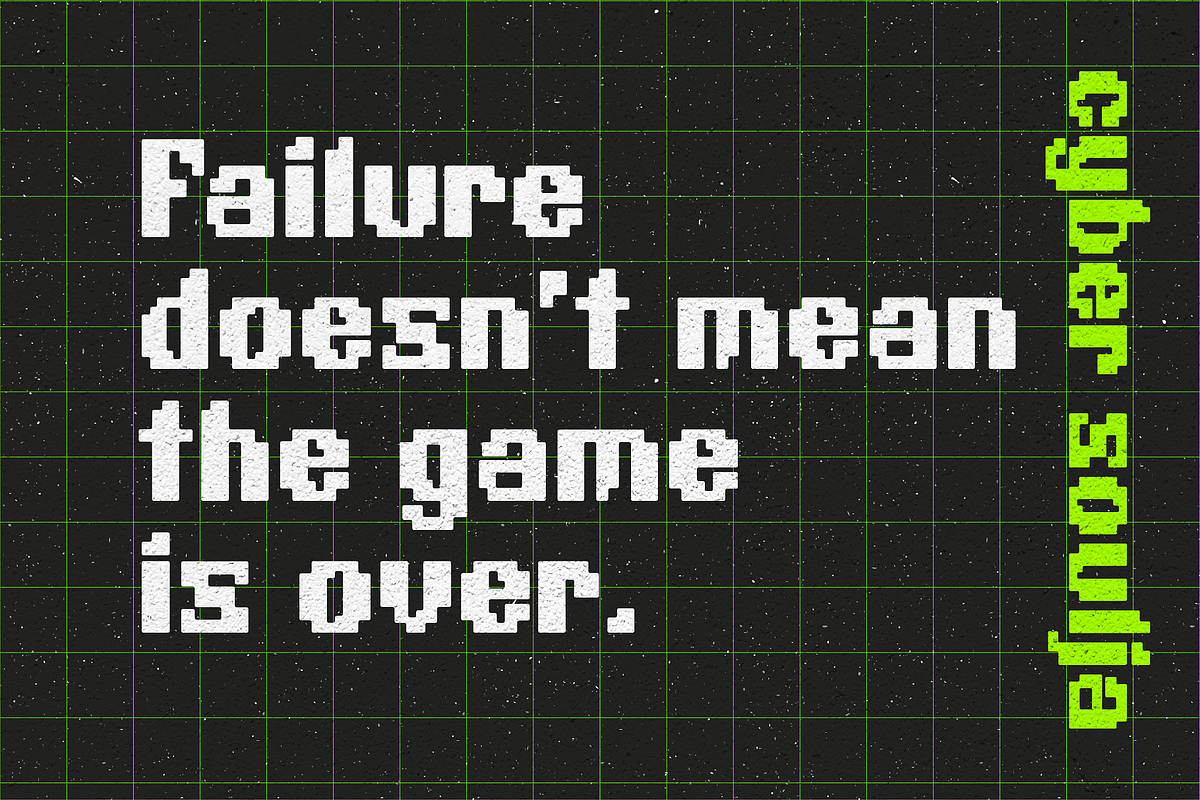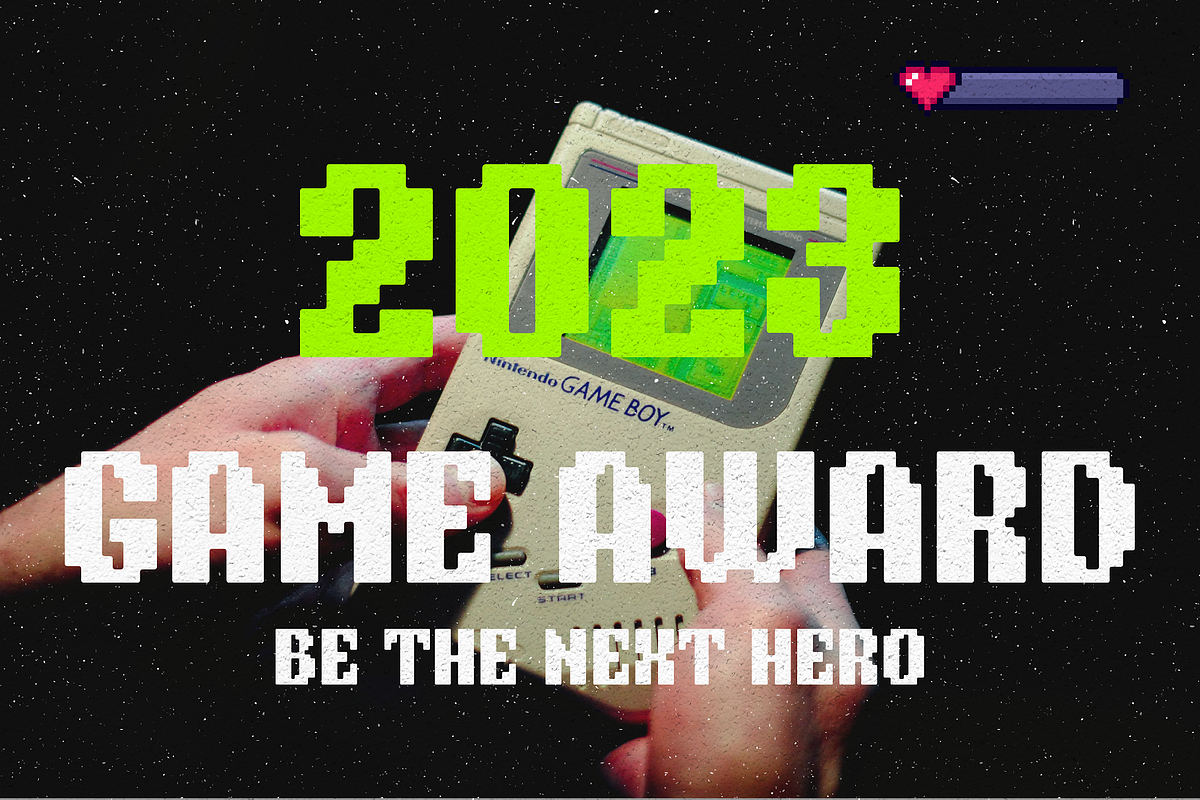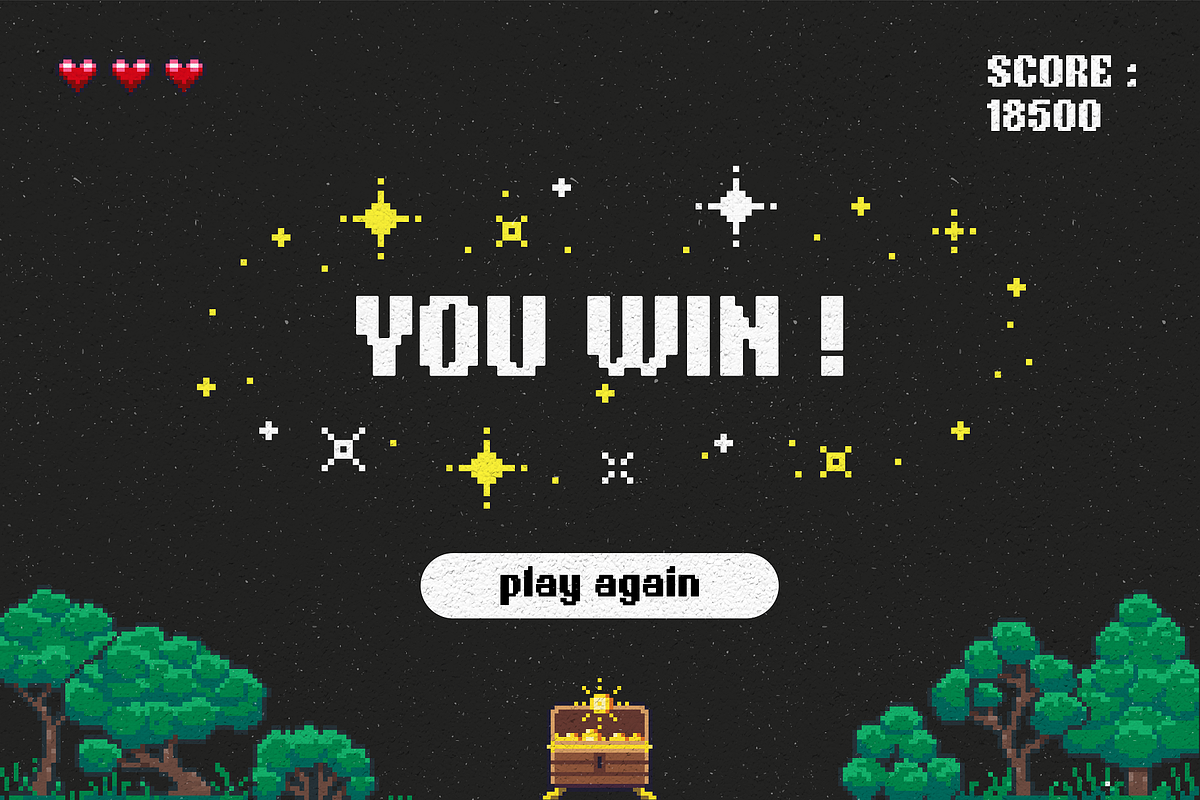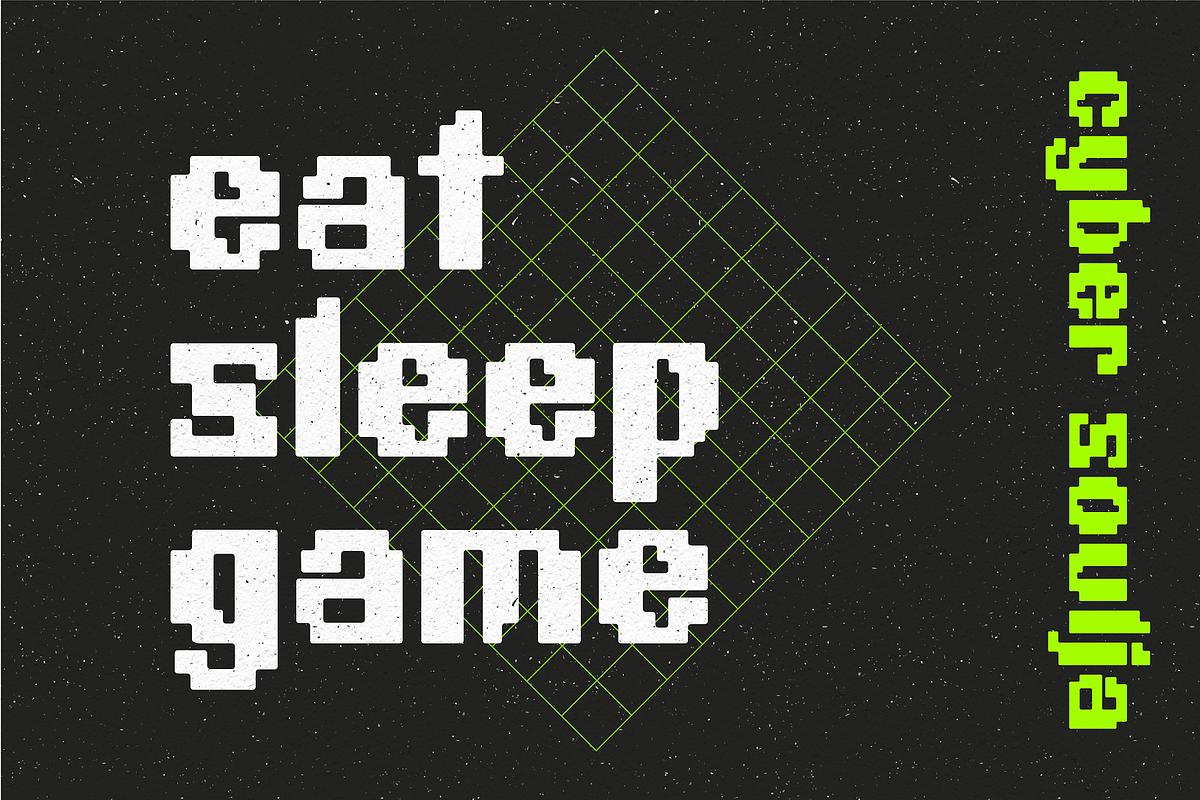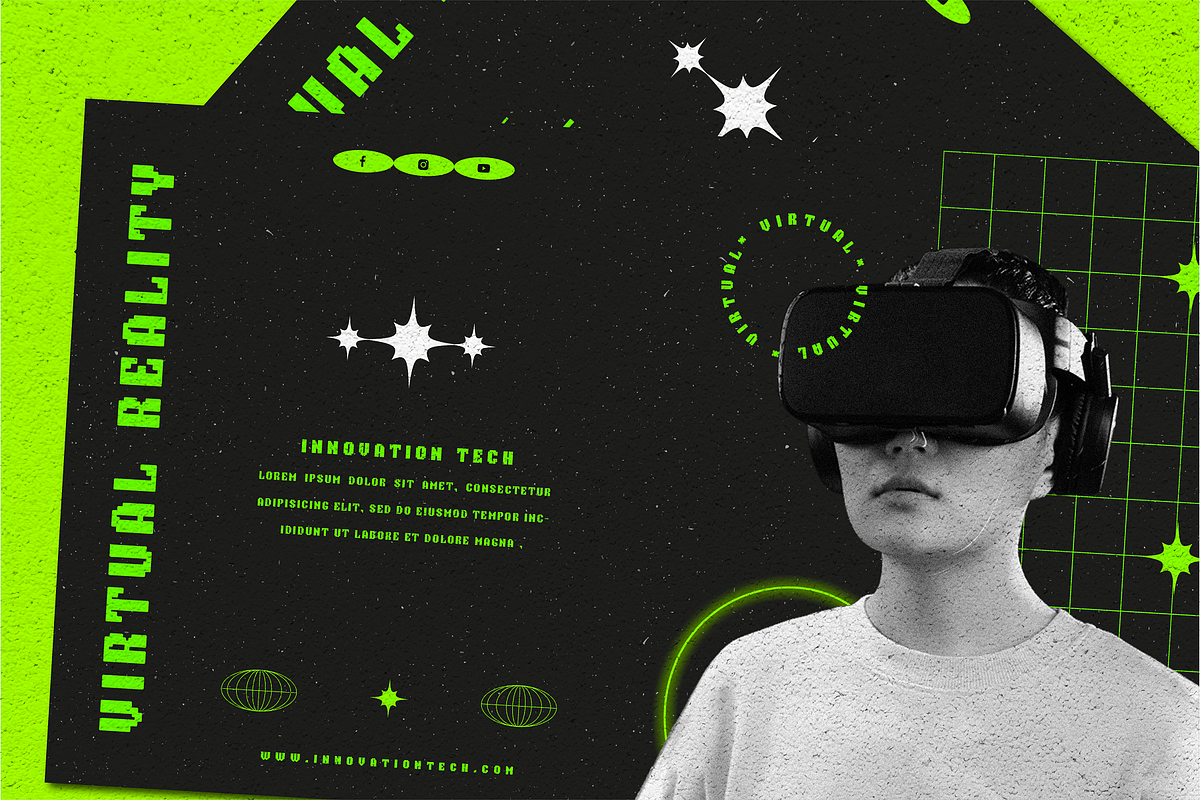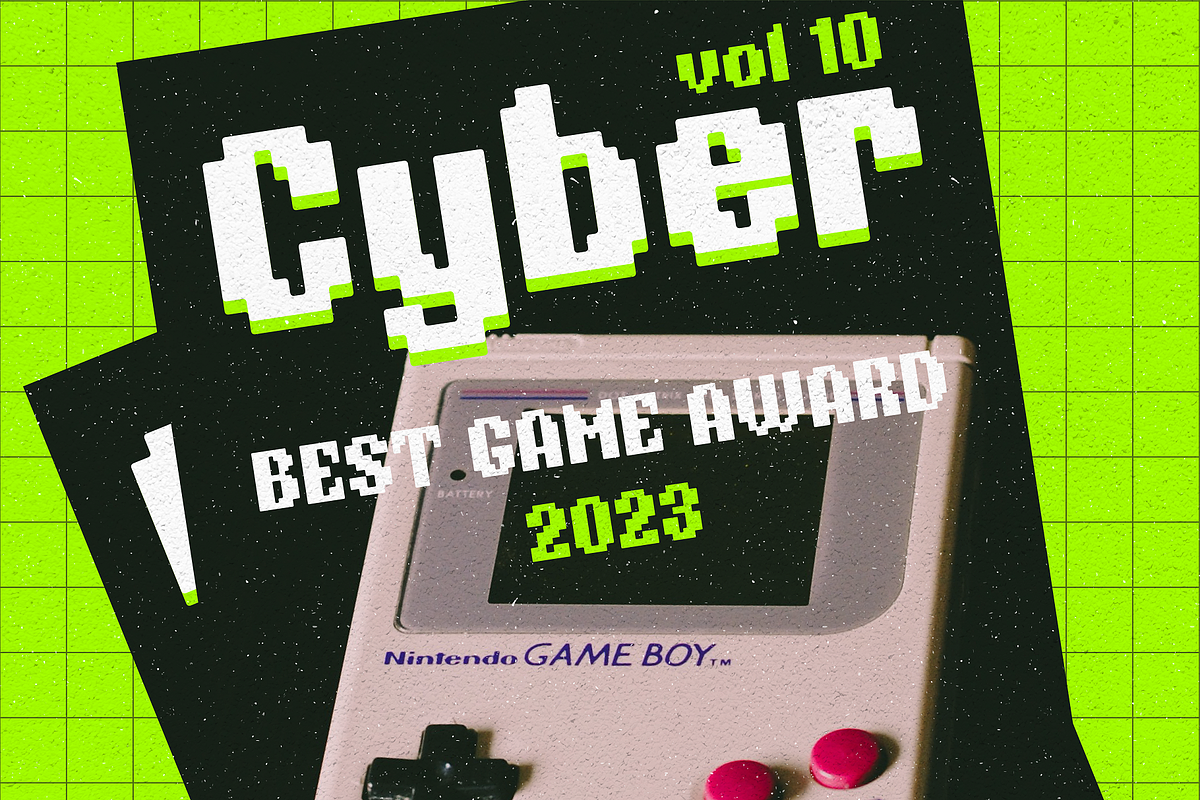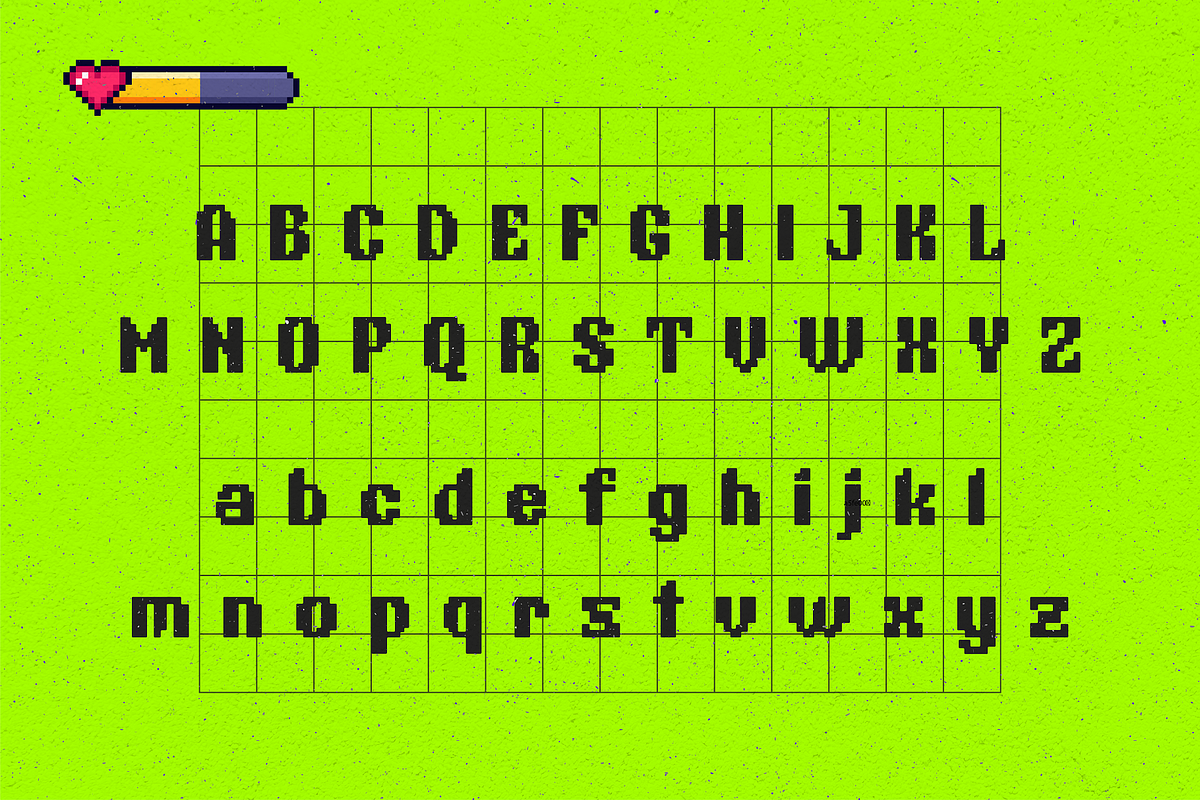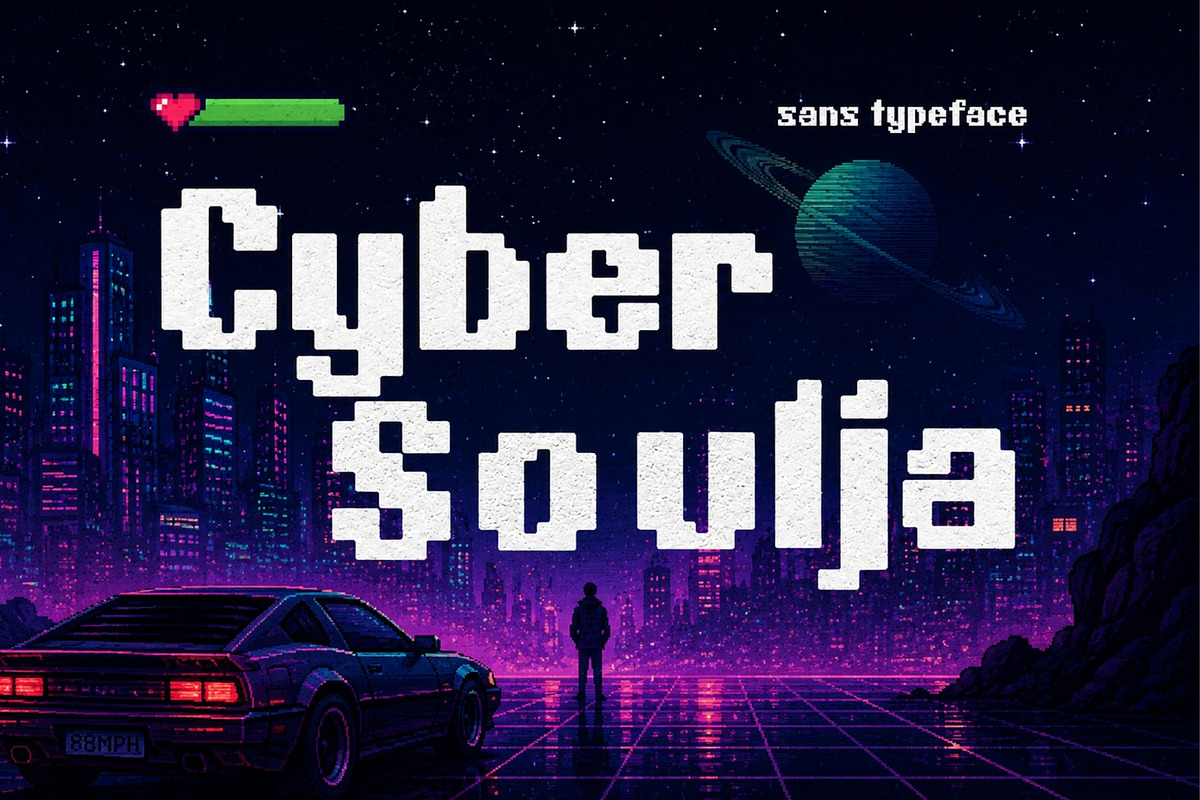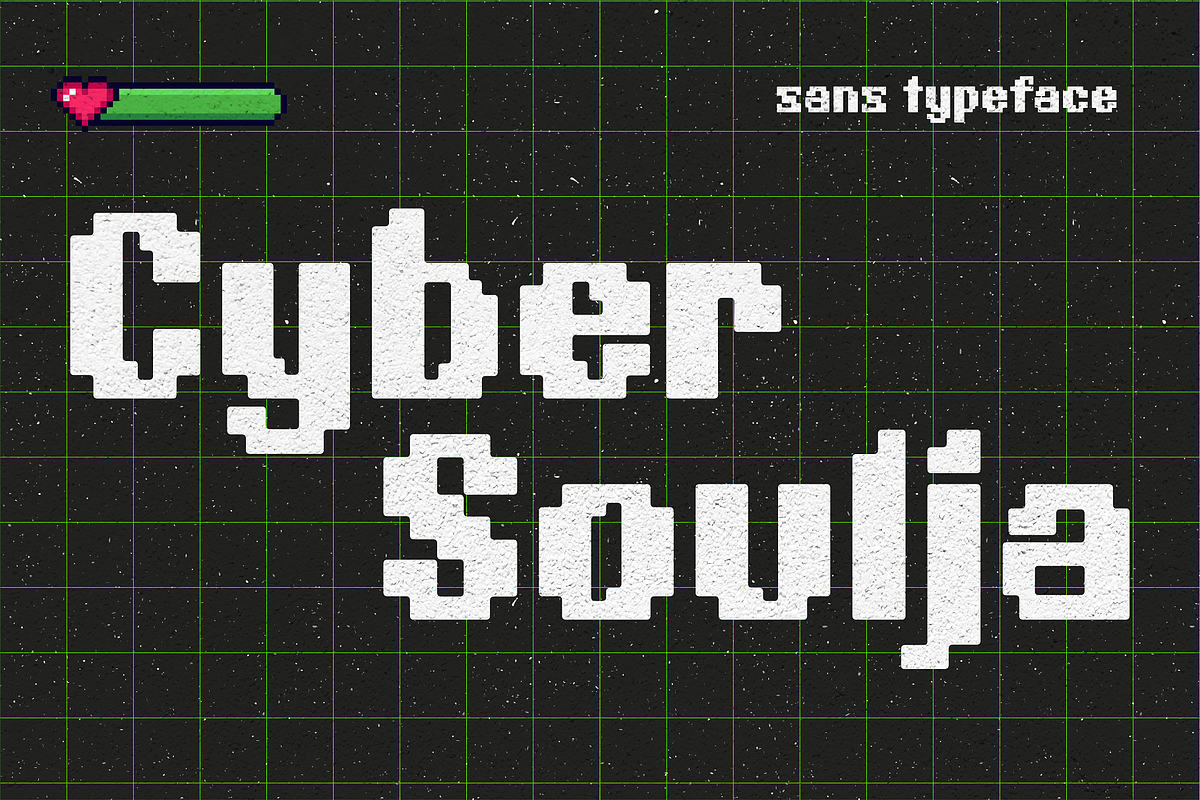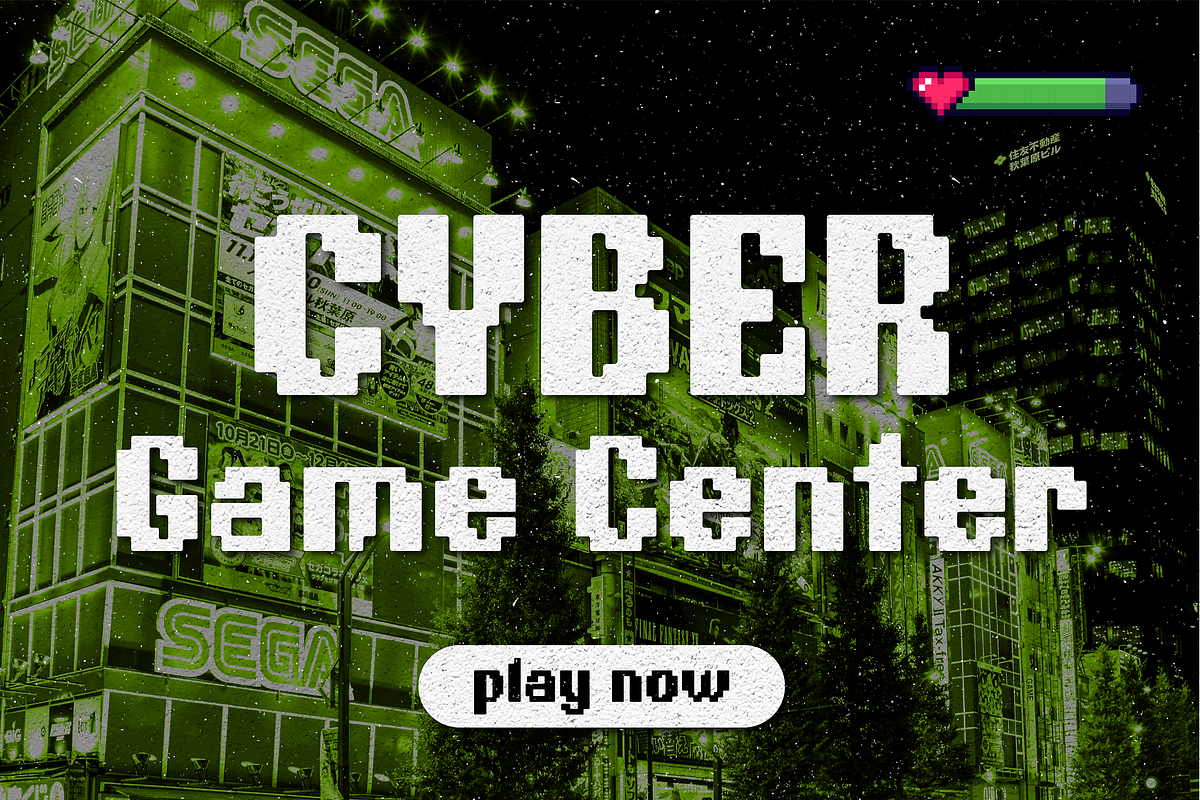
Cyber Soulja
Cyber Soulja is a pixelated sans-serif typeface that brings back the glory days of 1980s and 1990s. Each letter is crafted with precision and attention to detail, perfectly capturing the retro aesthetic of classic arcade games.
Its bold, blocky letters are reminiscent of the futuristic, sci-fi themes of the era, making it a great choice for use in game design, titles, packaging, posters, and logos. It's as if each letter is a pixelated warrior, fighting its way through a digital landscape of adventure and excitement. Tap into the nostalgia and create powerful designs with Cyber Soulja.